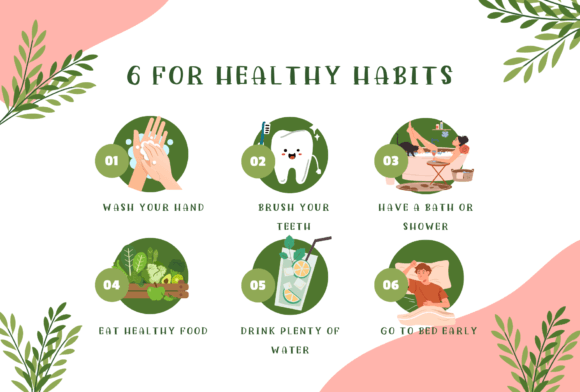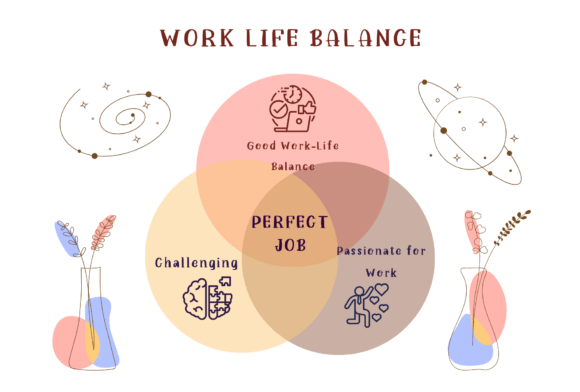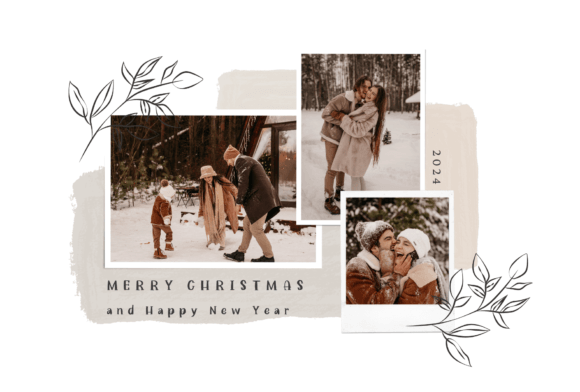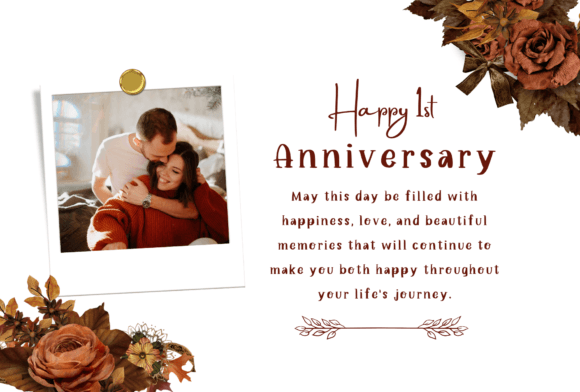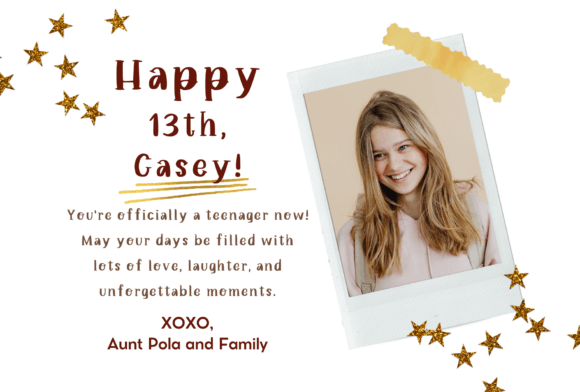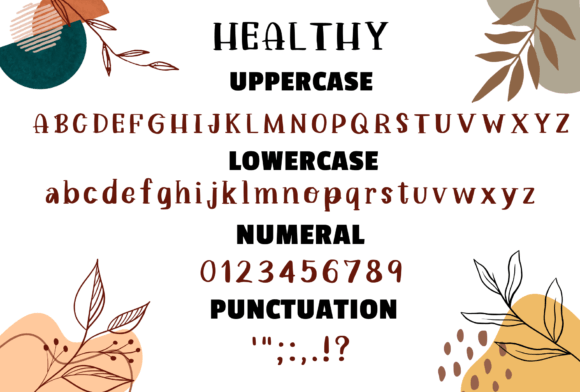
Bringing a Dose of Joy to Your Designs
Have you ever stared at a blank page, struggling to find the perfect font to match your creative vision? That was me, until I discovered the Healthy Font. This delightful, handwritten font is more than just a design element – it’s a breath of fresh air for your next project.
With its cheerful and lively touch, Healthy Font is the perfect addition to logos, branding materials, and any design that needs a playful twist. Its friendly style makes it an ideal choice for businesses related to children, health, wellness, and lifestyle. Whether you’re working on a children’s book, a fitness campaign, or a lifestyle blog, Healthy Font is sure to bring a smile to your audience’s faces.
Key Features of Healthy Font
- Unique Characteristics: The font features a unique blend of modern and traditional design elements, making it suitable for a wide range of applications, from corporate branding to creative projects.
Design Review: Healthy Font
Healthy Font is an interesting attempt at creating a unique and informative typeface. While it may not appeal to everyone, it has some redeeming qualities that make it worth considering for specific use cases.
- Custom illustrations: The font includes various illustrations that add a touch of whimsy and friendliness to the overall design.
- Color scheme: The color palette is calming and easy on the eyes, making it suitable for health-related content.
- Legibility: The font is easy to read, even at smaller sizes, which is a must for informative content.
- Limited font styles: The font only comes in a few styles, which may limit its versatility in certain design contexts.
- Overemphasis on illustrations: While the illustrations are cute, they may distract from the actual content in some cases.
- Not suitable for all industries: The font’s health-focused theme may not be suitable for other industries, such as finance or technology.
Overall, Healthy Font is a solid choice for health-related content, but its limitations may make it less desirable for other use cases. It’s a good option for designers who want to create a unique and engaging visual identity for their clients in the health industry.
Tips for Getting the Most Out of Healthy Font
For optimal results, use Healthy Font in conjunction with other design elements, such as images and colors, to create a visually appealing and engaging design.
Healthy Font is ideal for use in:
- Health and wellness branding
- Food and beverage packaging
- Wellness and fitness marketing materials